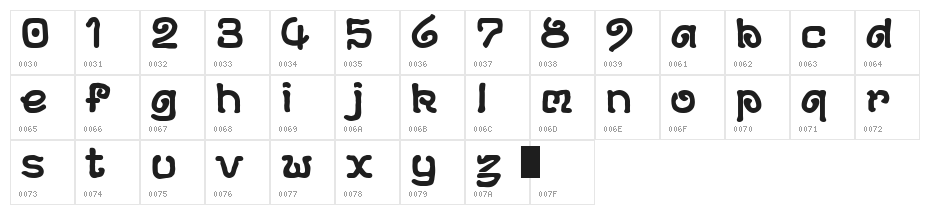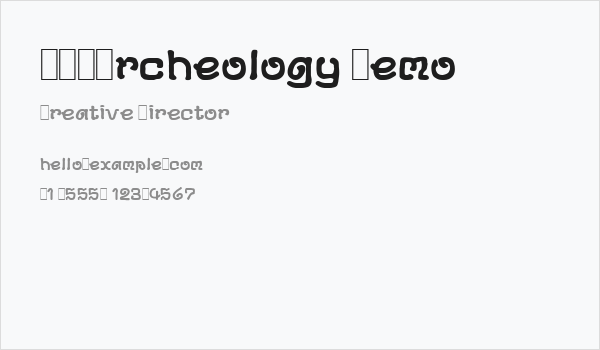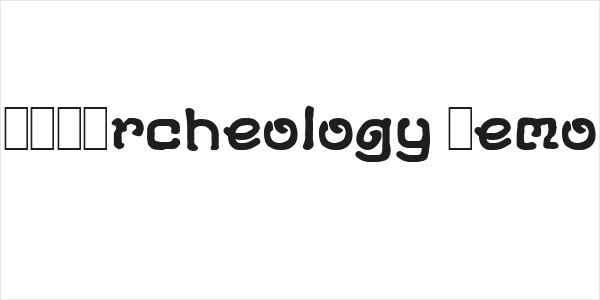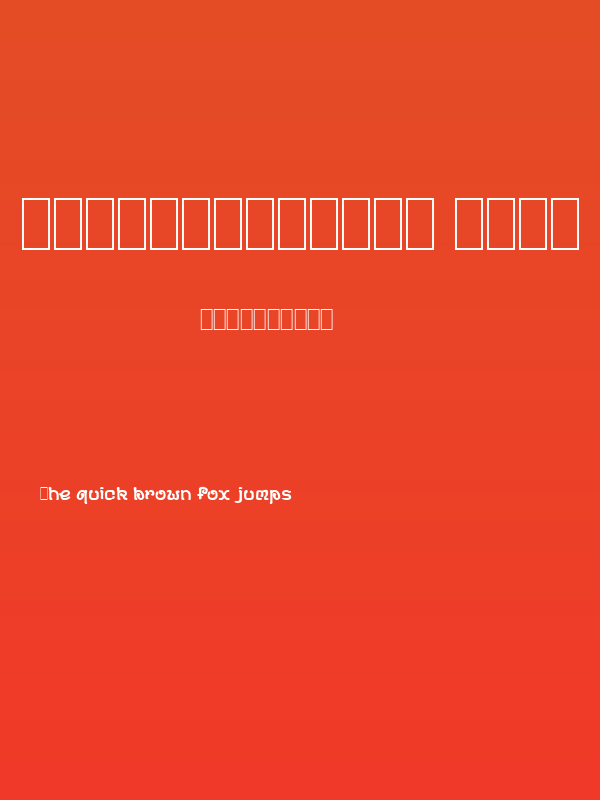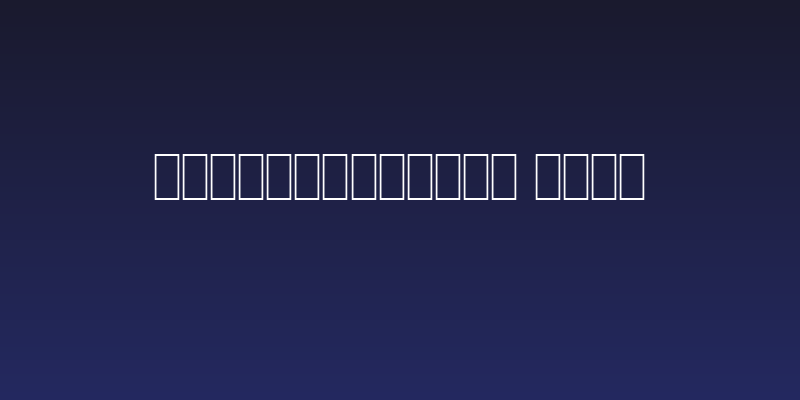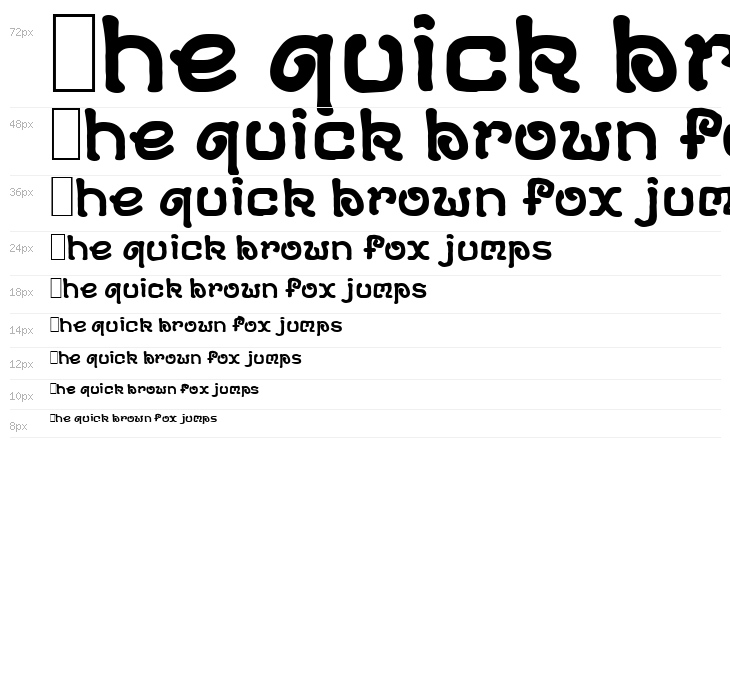
DS-Archeology Demo Font
DS-Archeology Demo Description
This font features a playful and bold design with a hand-drawn aesthetic. The characters have a rounded, organic feel, reminiscent of ancient scripts or cave drawings. Each letter is distinct with a slightly irregular shape, adding to its charm and uniqueness. The numbers and special characters follow the same style, maintaining consistency throughout. This font is perfect for projects that require a touch of whimsy and creativity, making it ideal for children's books, playful branding, or artistic posters.
Proposed ProjectsChildren's books, playful branding, artistic posters, creative invitations.